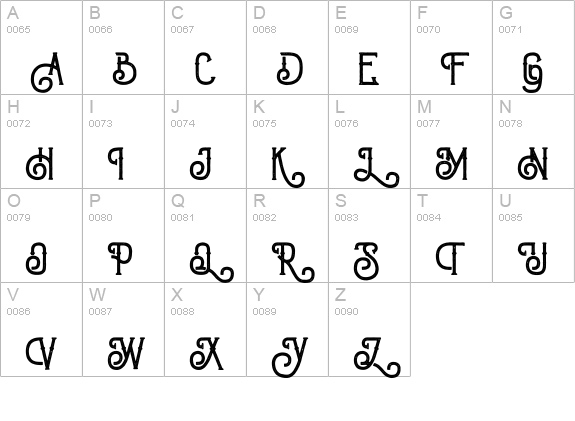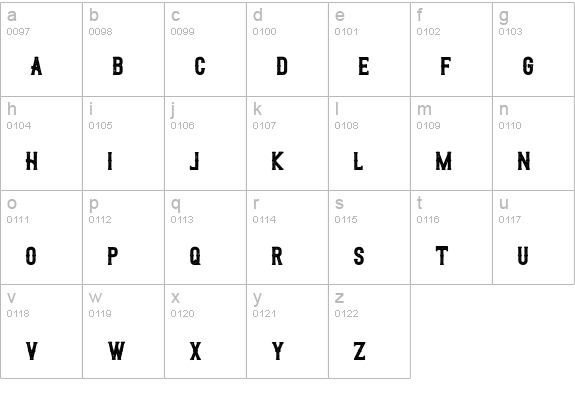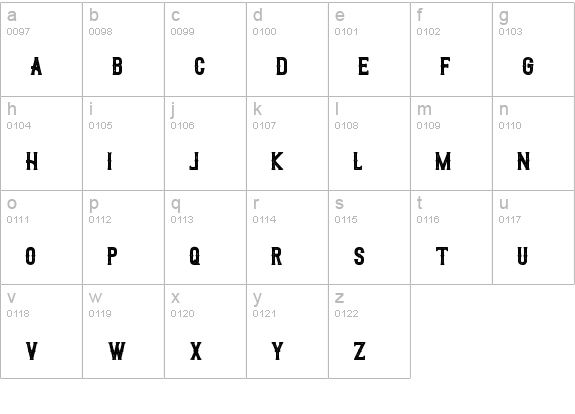
Triumph Wheels - Display Font Font Details
Triumph Wheels - Display Font is a free for personal use font in the Fancy > Decorative category, designed by madeDeduk. It has been downloaded 84 times and is available for Windows, Mac and Linux.
Triumph Wheels Display Font is a bold and dynamic typeface that exudes power and strength. With its sharp corners and stylish design, this font is perfect for making a statement in your designs. Whether you're creating posters, logos, or branding materials, Triumph Wheels will make your text stand out with its eye-catching appearance.